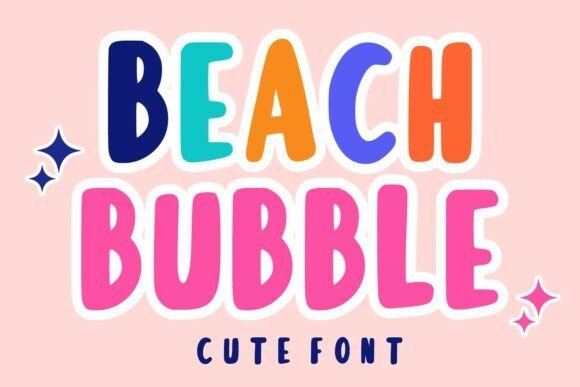
Introduction to Beach Bubble Font
Beach Bubble is a cute and playful display font with a fun, bubbly style that brings a cheerful and friendly vibe to any design.
Its rounded shapes and bold characters make it perfect for kids designs, summer themes, beach projects, branding, posters, social media graphics, t-shirts, stickers, and more This font is ideal for designers who want to create bright, happy, and eye-catching typography with a modern playful look.